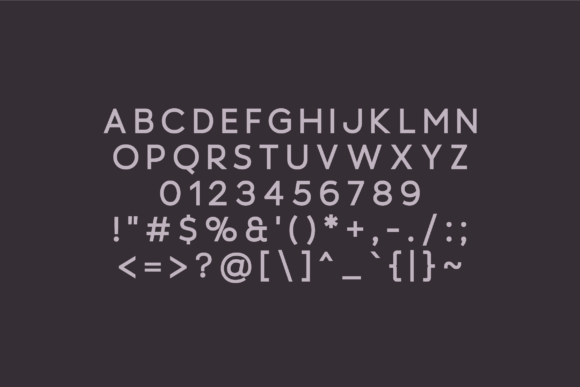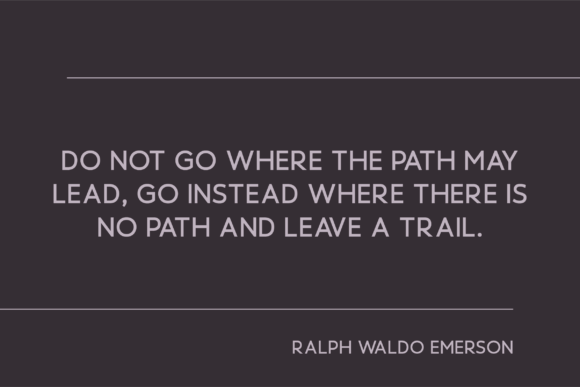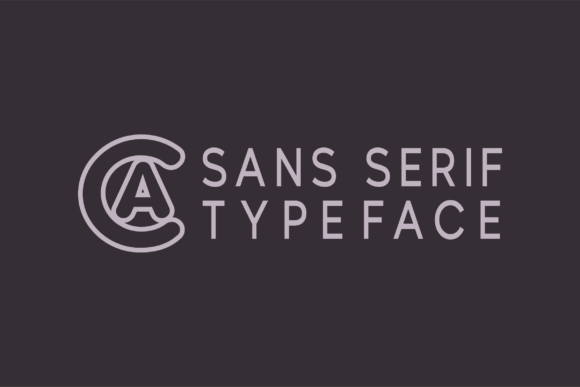
Introducing Barksy Font: Elevate Your Designs with Modern Elegance
In the world of typography, a font can make all the difference in the aesthetic and effectiveness of a design. For designers, crafters, and anyone looking to add a touch of sophistication to their projects, Barksy Font emerges as a versatile and stylish solution. This modern, classy sans serif typeface is not just a font; it’s a tool that can elevate your logos, weddings, invitations, quotes, advertisements, and more to new heights of elegance and professionalism.
What is Barksy Font?
Barksy Font is a thoughtfully designed sans serif typeface that boasts a clean, modern look. Its character set includes upper characters, numbers 0-9, and a range of punctuation and symbols, ensuring that you have everything you need to create comprehensive and cohesive designs. The sans serif style, characterized by its lack of decorative lines or flourishes at the ends of the letters, gives Barksy a sleek and contemporary feel that can seamlessly integrate into various design projects.
Key Features of Barksy Font
- Modern and Classy Design: Barksy Font’s design is both modern and classy, making it perfect for projects that require a touch of sophistication.
- Versatility: Its versatility is one of its standout features. Whether you’re working on a logo, wedding invitation, advertisement, or magazine, Barksy can adapt to any project’s needs.
- Comprehensive Character Set: With upper characters, numbers 0-9, and a variety of punctuation and symbols, Barksy provides everything you need for a wide range of design applications.
- Ease of Use: Designed to be user-friendly, Barksy can be easily integrated into your design workflow, allowing for smooth and efficient project execution.
Applications of Barksy Font
The applications of Barksy Font are vast and varied, limited only by your imagination. Here are some of the areas where Barksy truly shines:
- Logos: Create memorable and impactful logos that stand out with Barksy’s modern and clean aesthetic.
- Weddings and Invitations: Add a touch of elegance to your wedding invitations, save-the-date cards, and other event-related designs.
- Quotes and Typography: Use Barksy to highlight inspirational quotes, sayings, or phrases in your designs, making them more engaging and visually appealing.
- Advertisements: Elevate your advertising materials with a font that exudes professionalism and style.
- Print and Magazines: For print projects, including magazines, brochures, and flyers, Barksy offers a readability and aesthetic that can’t be beat.
Why Choose Barksy Font?
Choosing Barksy Font for your design projects comes with numerous benefits. Its modern design ensures that your work looks contemporary and relevant. The classy aesthetic makes it suitable for projects that require a level of sophistication. Moreover, its versatility means you can use it across a wide range of applications, making it a valuable addition to your font library.
Barksy Font is more than just a typeface; it’s a design companion that can help you achieve the look and feel you’re aiming for in your projects. Whether you’re a professional designer or a crafty DIY enthusiast, Barksy offers the tools you need to create stunning, professional-grade designs. With its modern and classy sans serif style, comprehensive character set, and versatility, Barksy Font is poised to become a go-to choice for a wide range of design applications.